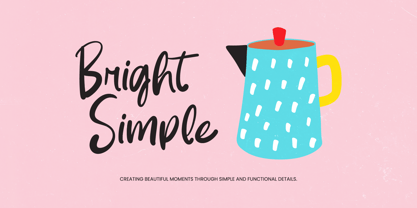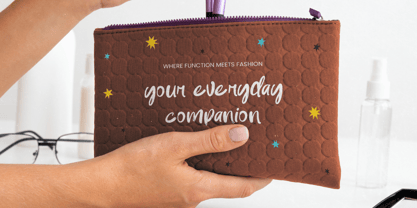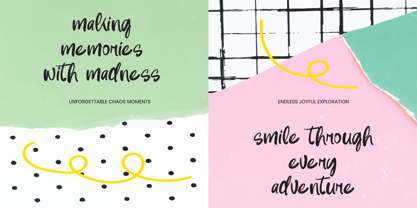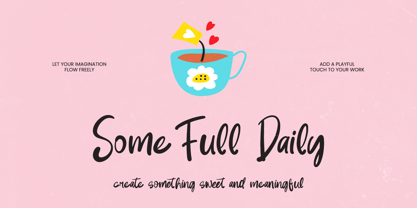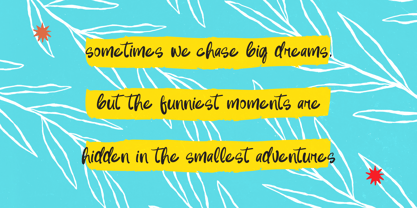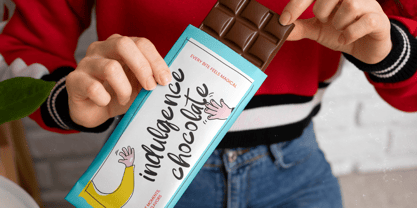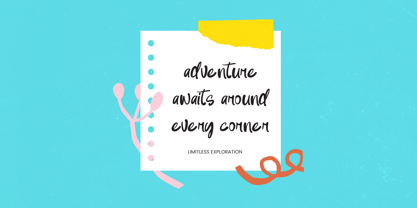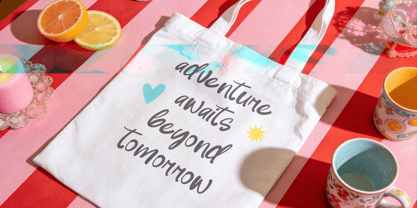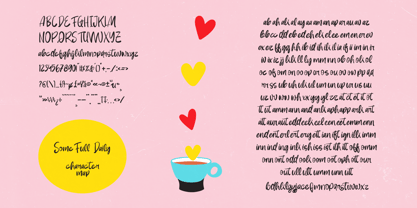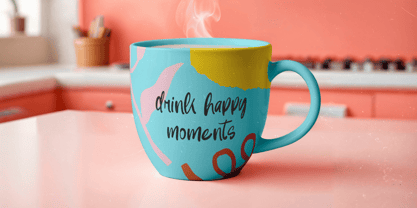
Some Full Daily
by Letterena Studios
The Some Full Daily Font Family was designed by Heru Utama Putra and published by Letterena Studios. Some Full Daily contains 2 styles and family package options. More about this family
Some Full Daily - Sticky Notes & Quotes
Elevate your creative projects with an authentic, human touch using the Some Full Daily - Sticky Notes & Quotes typeface. This handcrafted script captures a playful yet sophisticated organic aesthetic, making it an essential tool for modern designers seeking personality and warmth. With its impressive collection of 150 ligatures and 25 alternates, Some Full Daily - Sticky Notes & Quotes offers a level of customization that ensures your headlines look uniquely tailored and professionally balanced.
Some Full Daily